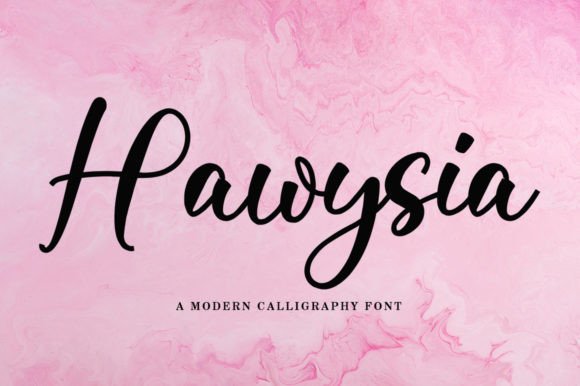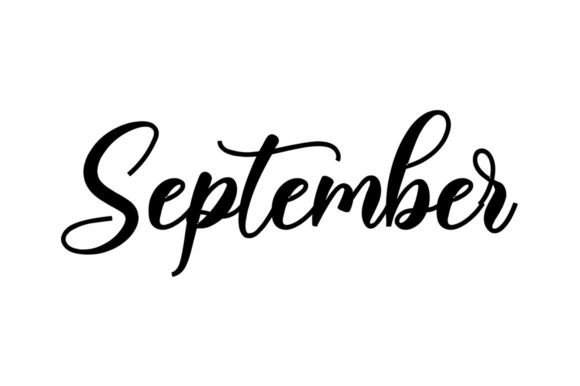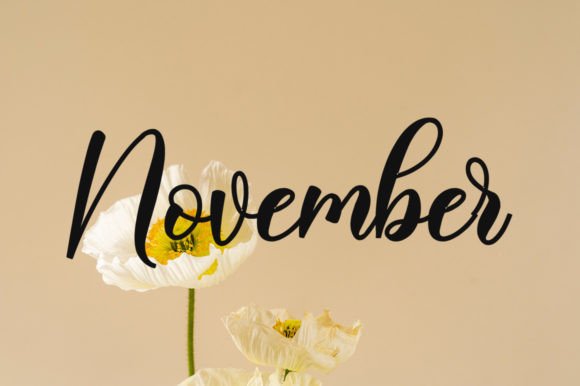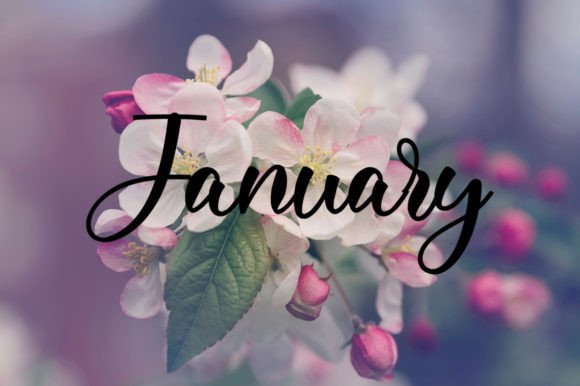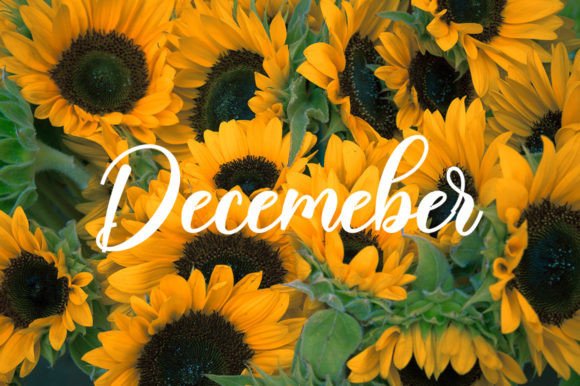
Hawysia: Exquisite Handwritten Elegance for Sophisticated Designs
Hawysia is the epitome of handwritten sophistication – a beautifully crafted script font that brings grace and personality to wedding stationery, premium branding, and heartfelt correspondence. Its PUA encoding gives you full creative control over every elegant swirl and swash.
Timeless Elegance
Perfect for life’s most special moments
Why Hawysia Captivates
- Artisan Craftsmanship: Authentic handwritten charm with consistent elegance
- Complete Creative Control: PUA-encoded swashes and alternates
- Versatile Sophistication: Equally stunning on paper and screens
- Emotional Resonance: Adds personal touch to every word
Wedding Elegance
- Invitation suites
- Place cards & menus
- Thank you notes
Brand Identity
- Luxury logos
- Business cards
- Boutique packaging
Heartfelt Correspondence
- Greeting cards
- Inspirational quotes
- Announcements
Designer-Ready Features
- Character Set: 500+ glyphs including multilingual support
- Special Features: 20+ swashes, stylistic alternates
- Perfect Pairings: Combines beautifully with Didot & Lora
✍️ Calligraphy Tip: Use swash capitals for names and dates in invitations to create focal points.